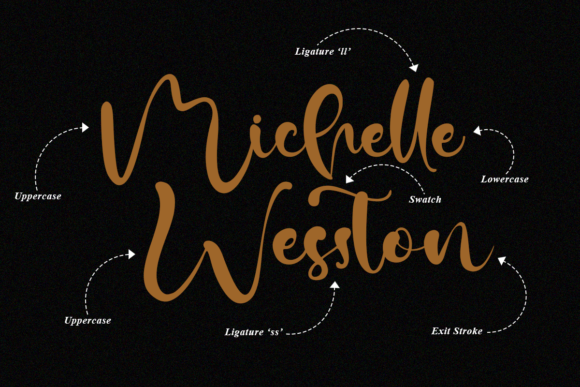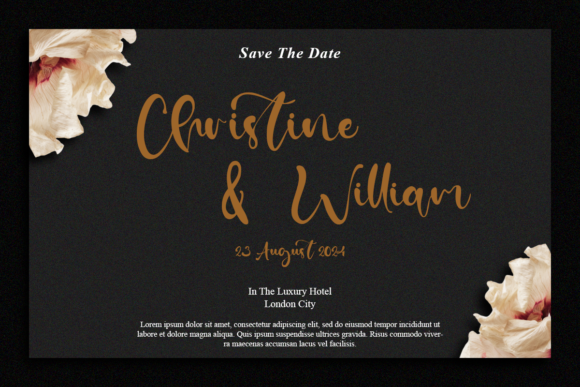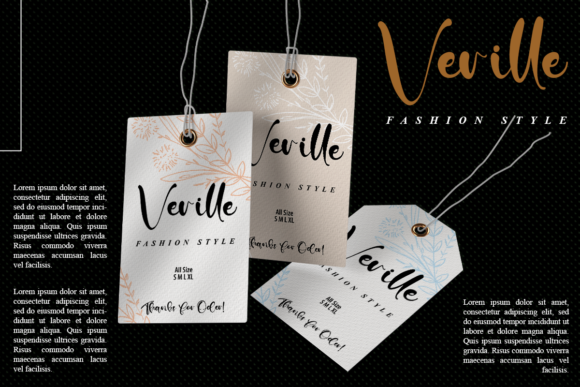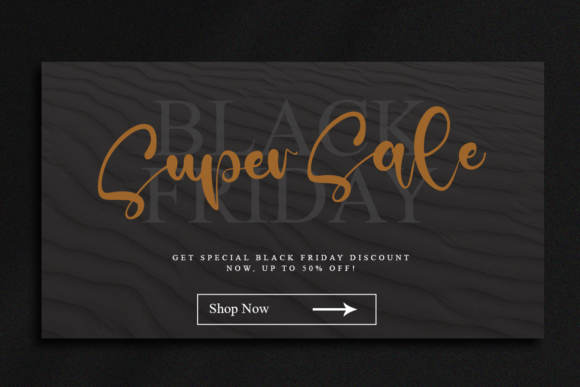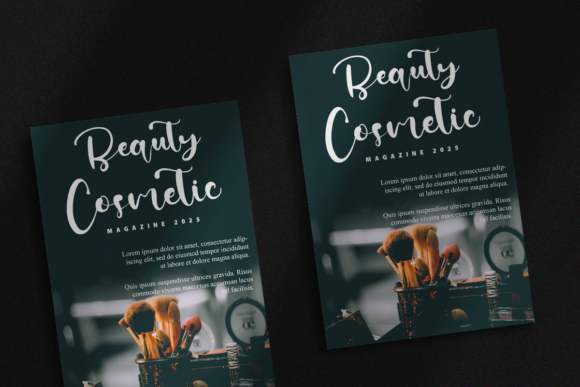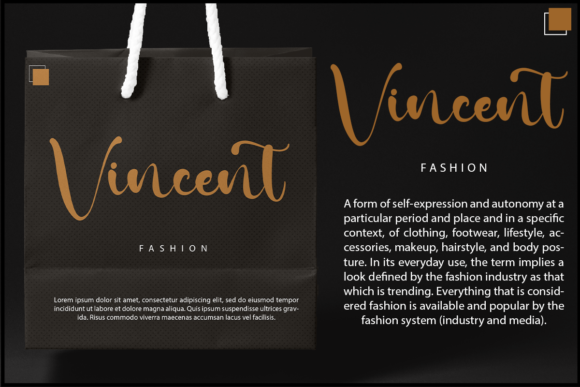
Brown Candy Font: The Sweetest Addition to Your Design Collection
Are you tired of using the same old fonts in your designs? Look no further than the Brown Candy Font, a modern script typeface that’s perfect for adding a touch of sweetness to your creations. With its elegant and flowing curves, Brown Candy is ideal for a wide range of design applications, from logotypes and branding to digital lettering arts and advertising.
The Perfect Font for Creative Designs
Brown Candy is a versatile font that’s suitable for a variety of design projects. Its modern script style makes it perfect for:
- Logotypes: Create a lasting impression with a custom logotype that showcases your brand’s personality.
- Branding design: Develop a consistent visual identity that sets your brand apart from the competition.
- Logo design: Design a logo that perfectly represents your business or product.
- Digital lettering arts: Add a touch of elegance to your digital art with Brown Candy’s flowing curves.
- T-shirt/apparel: Create eye-catching designs for t-shirts, hoodies, and other apparel.
- Posters: Design stunning posters that grab attention and leave a lasting impression.
- Magazines: Add a touch of sophistication to your magazine designs with Brown Candy’s elegant script style.
- Signs: Create eye-catching signs that perfectly represent your business or brand.
- Advertising design: Develop effective ad campaigns that capture your target audience’s attention.
Why Choose Brown Candy Font?
So, what sets Brown Candy apart from other fonts? Here are just a few reasons why you should add it to your design collection:
- Unique and eye-catching: Brown Candy’s modern script style is sure to capture everyone’s attention.
- Versatile: Use Brown Candy for a wide range of design applications, from logotypes to digital lettering arts.
- Elegant and sophisticated: Add a touch of elegance to your designs with Brown Candy’s flowing curves.
- Easy to read: Despite its script style, Brown Candy is easy to read, making it perfect for body text and headlines.
Tips for Using Brown Candy Font
To get the most out of Brown Candy, here are a few tips to keep in mind:
- Use it as a headline font: Brown Candy is perfect for headlines and titles, where its elegant script style can really shine.
- Pair it with a sans-serif font: For body text, pair Brown Candy with a clean sans-serif font to create a beautiful contrast.
- Experiment with colors: Brown Candy looks great in a variety of colors, so don’t be afraid to experiment and find the perfect shade for your design.
- Use it for branding: Brown Candy’s unique and eye-catching style makes it perfect for branding and logotypes.
In conclusion, Brown Candy Font is a beautiful and versatile script typeface that’s perfect for adding a touch of sweetness to your designs. With its elegant and flowing curves, Brown Candy is ideal for a wide range of design applications, from logotypes and branding to digital lettering arts and advertising. So why wait? Add Brown Candy to your design collection today and watch how it captures everyone’s attention!